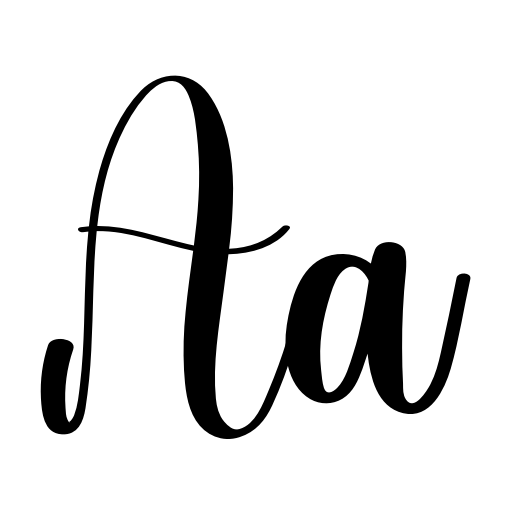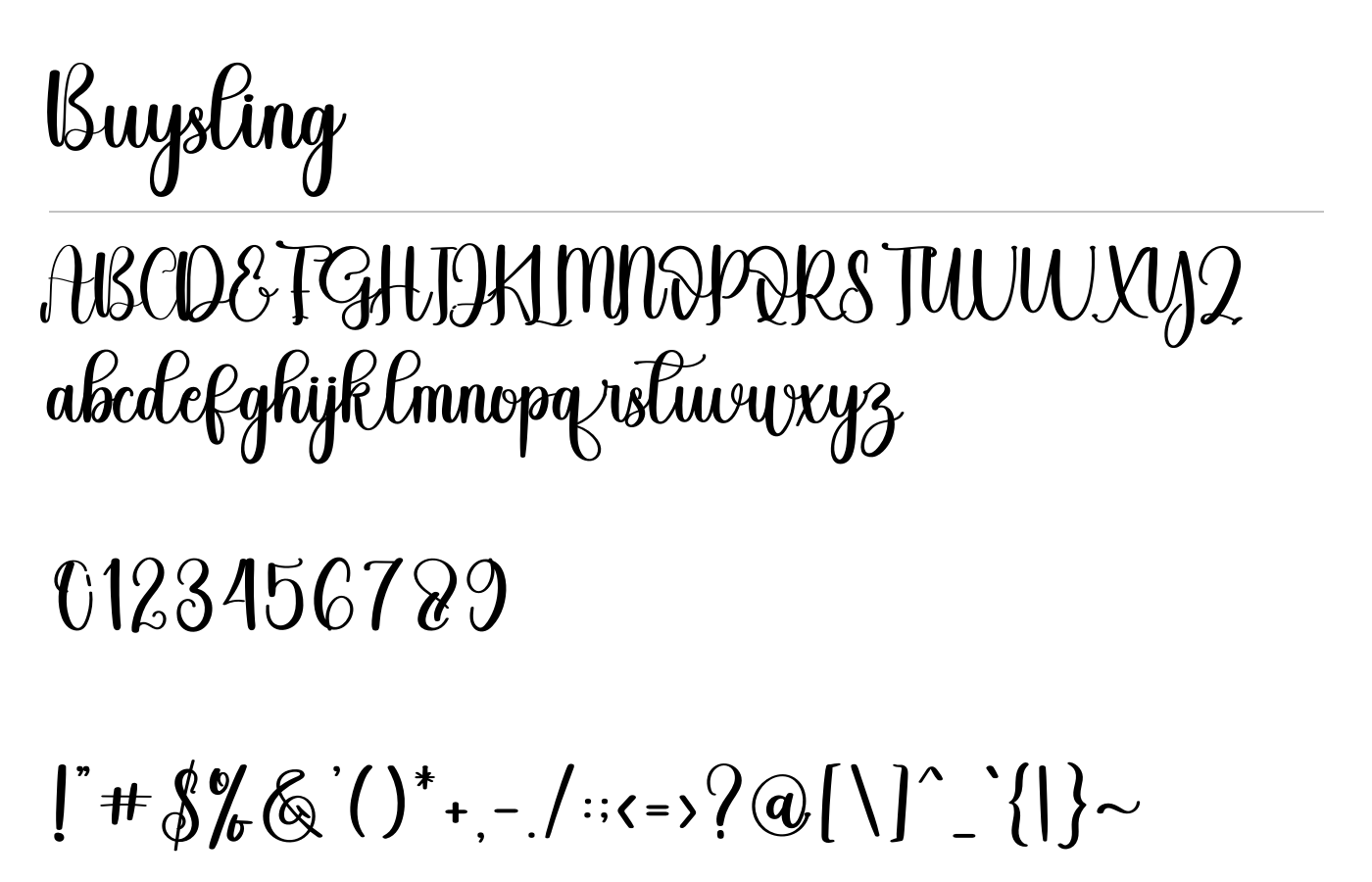
Buysling is an elegant script font with a playful yet refined personality, featuring fluid, hand-lettered strokes that blend smooth curves with delicate flourishes. Its moderate weight and tall x-height create a balanced and readable style, making it ideal for branding, invitations, and stylish headlines where a personal and graceful touch is desired. This font works beautifully in fashion, lifestyle, and creative projects that want to evoke charm and sophistication with a modern script flair.
Buysling Font